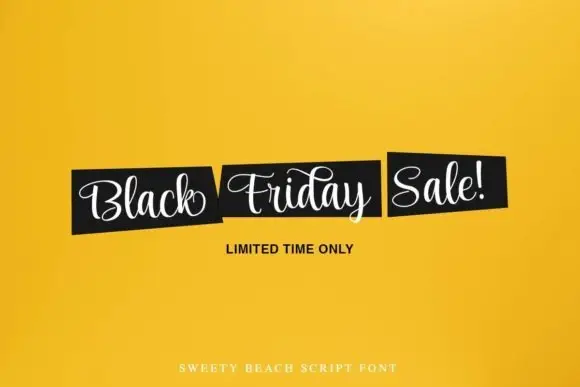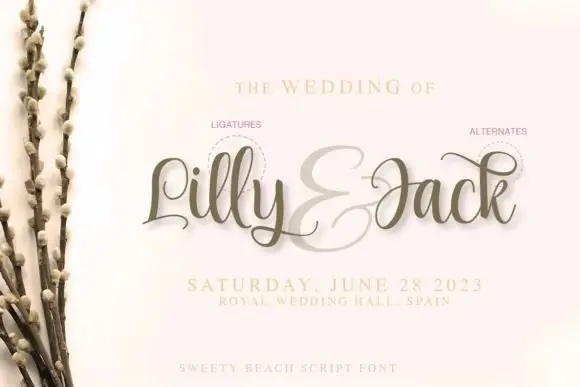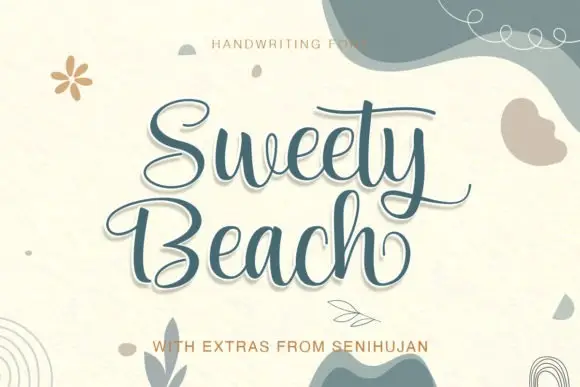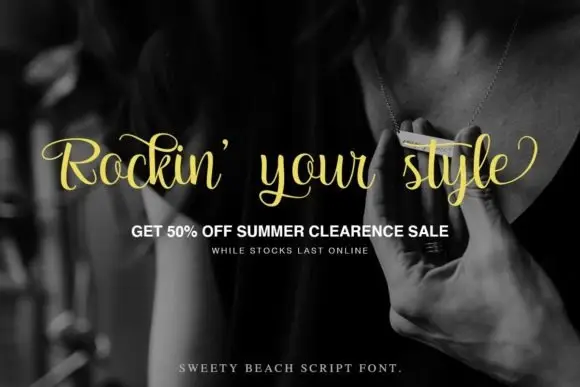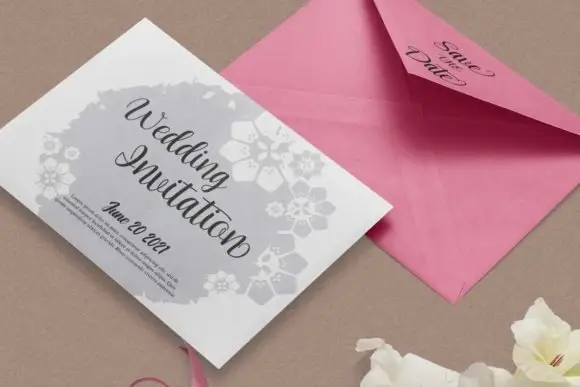
Sweety Beach Script Font
The Sweety Beach Script Font is a delightful handwritten typeface that captures the essence of summer vibes and beach relaxation. With its flowing curves and playful strokes, this font is perfect for a variety of design projects.
• Stylish script design
• Multilingual support
• Weights: Regular
• Ideal for branding projects, logos, and invitations
• Great for web design and social media graphics
• Perfect for print materials such as posters and flyers